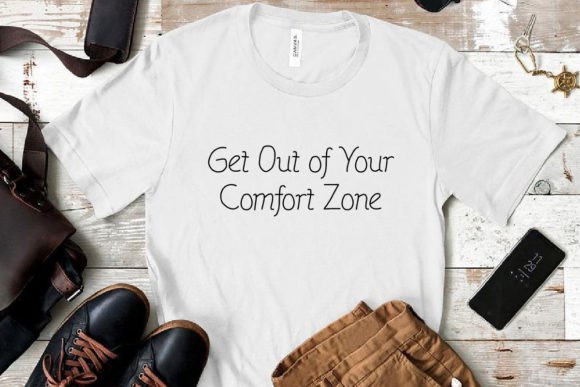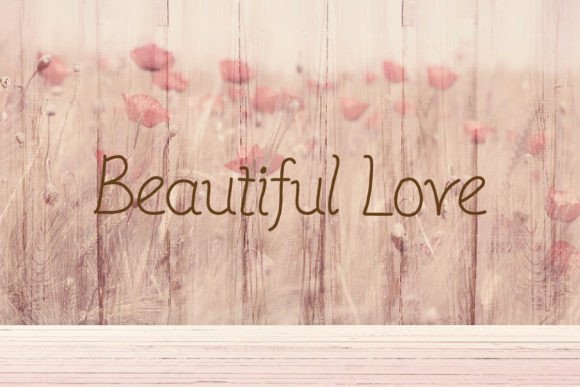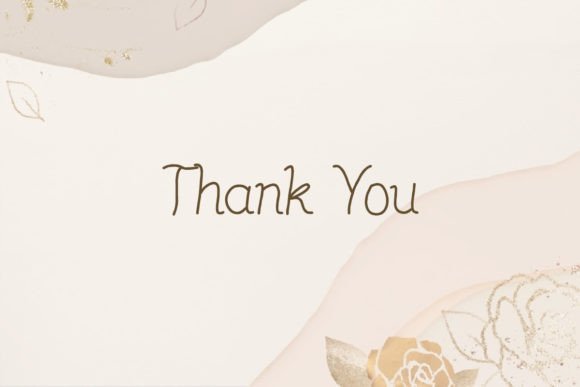
Introduction to Marry Italic Font
As designers, we’ve all been there – staring at a blank canvas, trying to bring a creative project to life. The blank page stares back, taunting us with its emptiness. But what if you had the perfect tool to break the ice and set the tone for your next masterpiece? Enter the Marry Italic Font, a chic handwritten font style that’s about to become your new best friend.
With its simplicity, clarity, and playfulness, the Marry Italic Font is the perfect design resource for any high-quality project. Whether you’re crafting wedding invitations, thank you cards, or quotes, this versatile font is sure to shine. And the best part? It’s available for a free download, complete with a transparent background that makes it easy to integrate into your design.
Key Features of Marry Italic Font
- High-quality, elegant script font suitable for creative projects, weddings, and special occasions.
- Includes a range of ligatures and swashes, adding a touch of sophistication and elegance to any creative project.
Honest Review: Marry Italic Font
I recently stumbled upon the Marry Italic Font, and I must say it’s been a fantastic addition to my design arsenal. The font’s unique and elegant style makes it perfect for a variety of creative projects, from wedding invitations to high-end branding materials.
What works well: ✨ The font is incredibly easy to use, and the high quality of the design shines through in every aspect. I love the delicate curves and the subtle flair of the font, which gives it a touch of sophistication. Plus, the free download option makes it accessible to designers of all levels.
Here are some of the key features that make the Marry Italic Font stand out:
- Beautiful, elegant design suitable for a wide range of creative projects
- High-quality design with a transparent background for easy customization
- Perfect for designers looking for a unique and sophisticated font
One thing to keep in mind: ⚠️ The font is a bit on the delicate side, so it may not be suitable for bold or eye-catching designs. Additionally, the font’s design can be a bit tricky to customize, especially for designers who are new to font design.
Overall, I’m thoroughly impressed with the Marry Italic Font. Its elegant design and high quality make it a valuable addition to any designer’s toolkit. Whether you’re working on a high-end branding project or a simple wedding invitation, this font is sure to impress.
Marry Italic Font
The Marry Italic Font is a high-quality design resource perfect for any creative project. With its elegant and sophisticated look, this font is ideal for adding a touch of class to your designs.
The Marry Italic Font is perfect for use in a variety of creative projects, including:
- Brand logos and identity design
- Magazine and book design
- Website design and development
To get the most out of the Marry Italic Font, be sure to:
- Use it in conjunction with a transparent background to add a touch of sophistication to your designs.
- Experiment with different font sizes and styles to create a unique and eye-catching look.
- Combine the Marry Italic Font with other design elements, such as graphics and images, to create a visually appealing design.